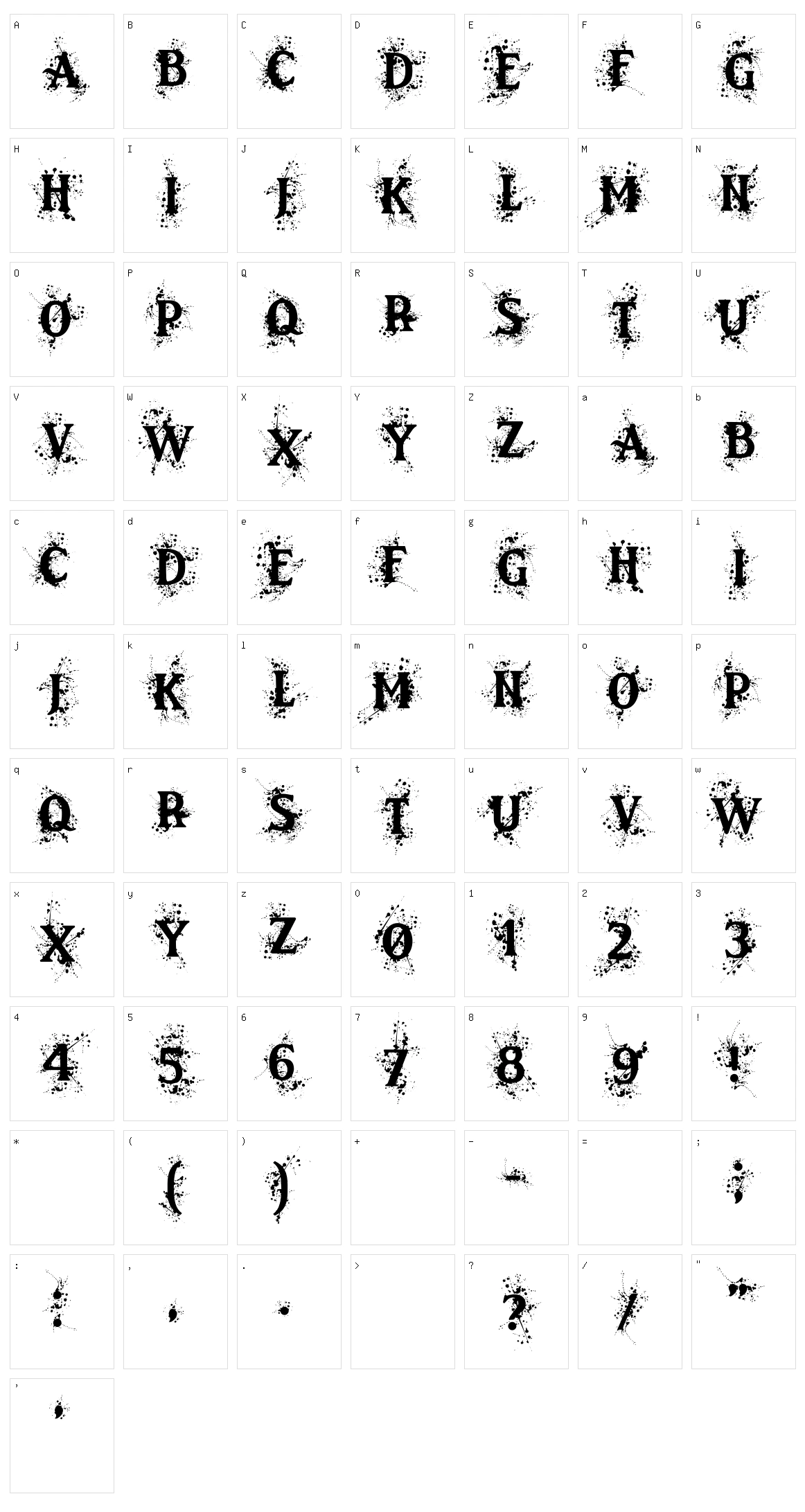
The free font Victorious is carefully designed by Vladimir Nikolic, showcasing a thoughtful balance of creativity and usability and falls under the Horror font style. When you download the ZIP file, it contains only 410.56 KB of font files, making it lightweight and quick to download. Please review the license details below to understand permitted usage and distribution rights. If license information is not available, we recommend using this font for personal projects only or contacting the author directly for commercial usage permissions.